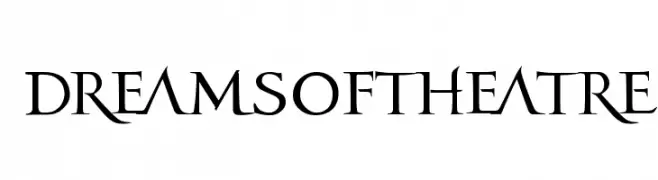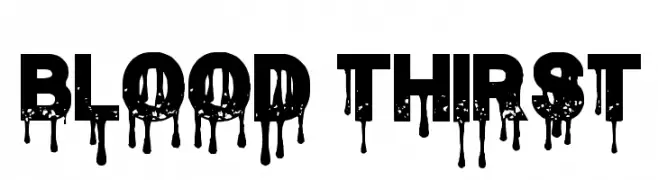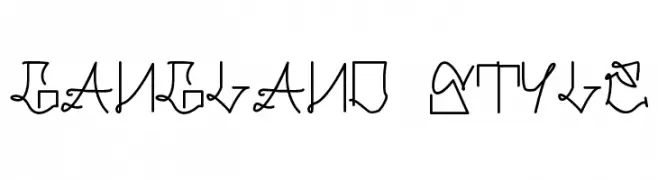
A dramatic, gothic-style font with sharp, jagged edges and a distressed look.
A bold, angular font with a 3D effect, inspired by ancient runes.
A decorative font with a camouflage-like pattern, ideal for artistic projects.
An abstract, stencil-like font with bold, irregular shapes resembling camouflage patterns.
A decorative font with thorn-like, jagged edges for a wild and dramatic look.
A bold, dripping font ideal for horror and spooky themes.
A bold, gothic-style font with sharp serifs and a dramatic flair.
A decorative, gangland-inspired font with intricate loops and angular lines.